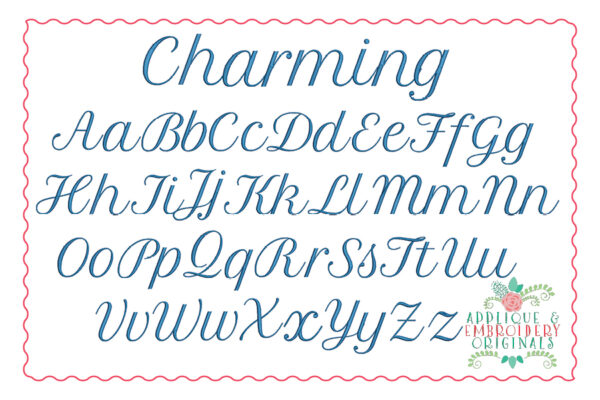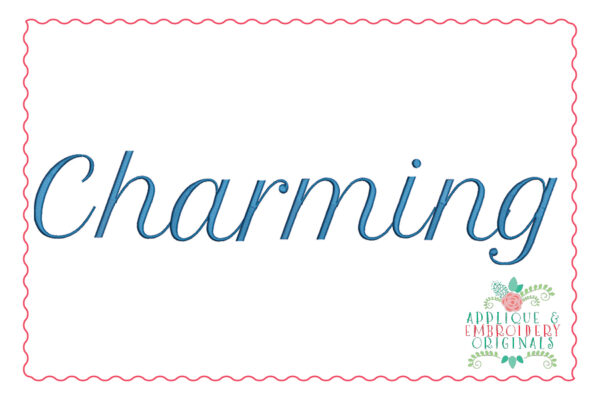
340 Charming Script Embroidery Font for embroidery machine. Perfect for your shirt, bag, towel or other item!
Designs comes in sizes 1″, 2″, 3″, 4″, 5″, 6″. All letters include A-Z, a-z. All letters are satin stitch.